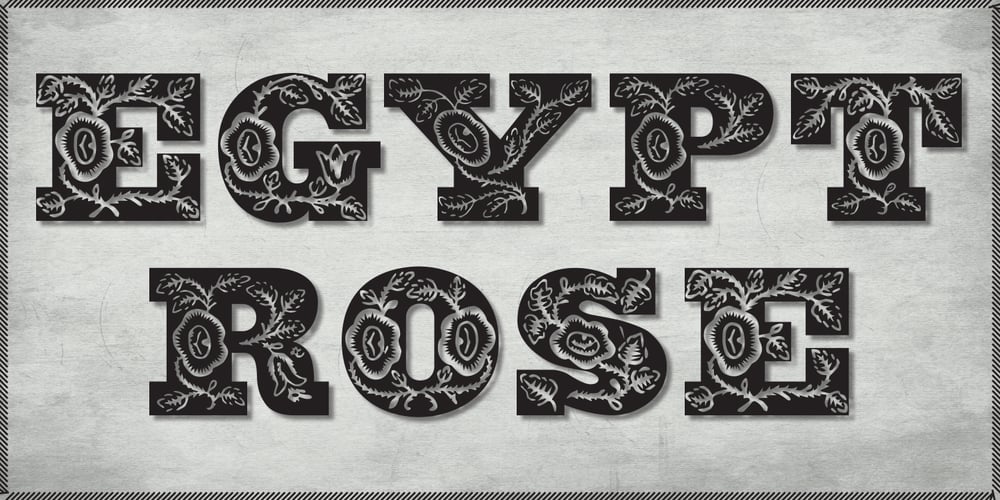
Egypt Rose Font Family was designed by Paul Smith and published by Octopi. Egypt Rose contains 1 styles and family package options. Slab Serif fonts are also sometimes referred to as ‘Egyptian’, hence the Egypt in the name. This lovely and complex font is based on old woodcut fonts. The upper case only font is brilliant for striking headlines. This OpenType font has support for CE languages and I hope you like it.